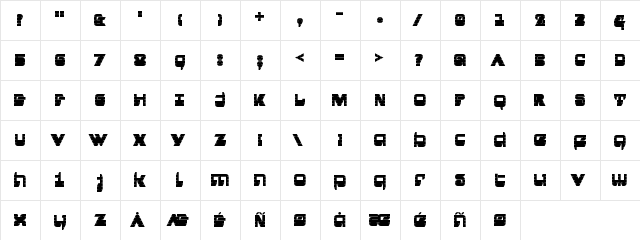
fs 23:59 Regular
| Designer | thalamic |
Design Context for fs 23:59 Typeface
fs 23:59 is a composed and adaptable typeface that performs quietly and consistently across a wide range of design contexts.